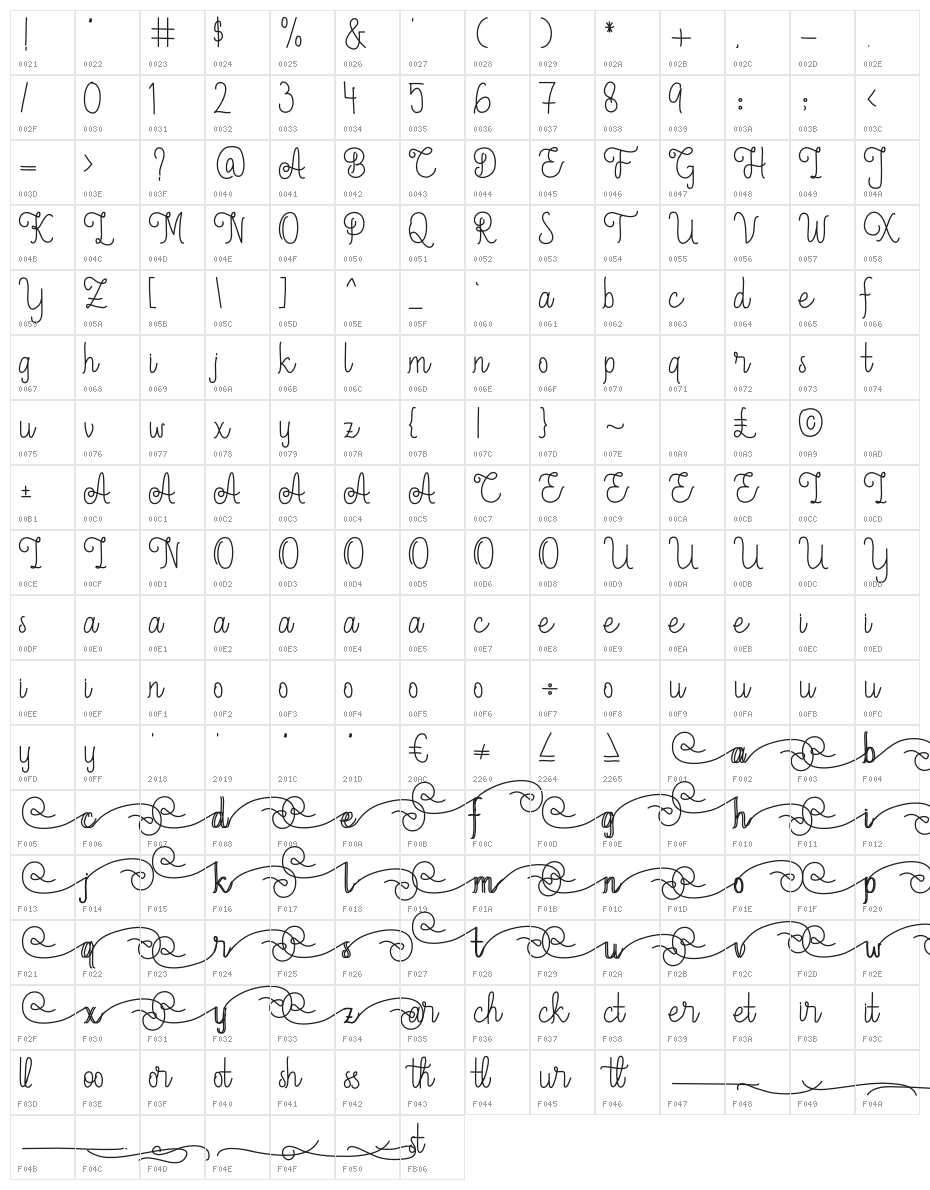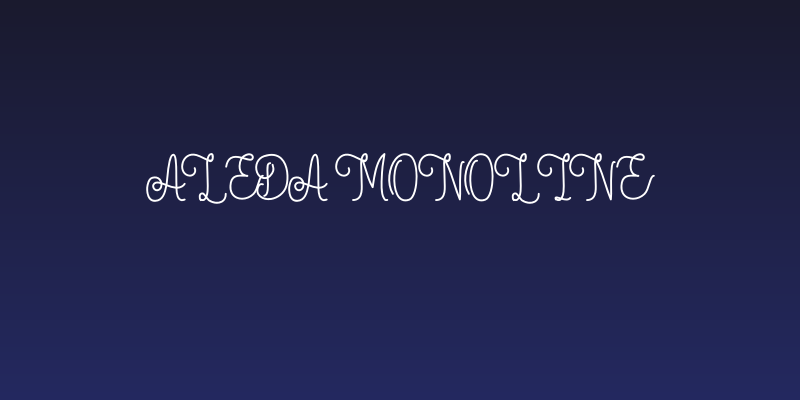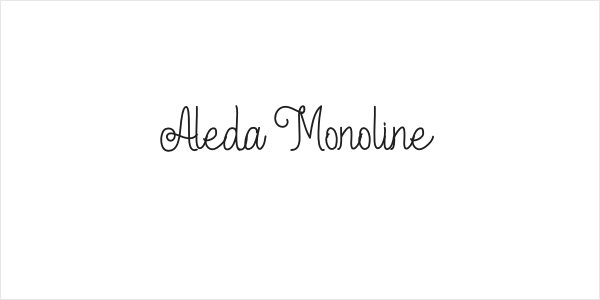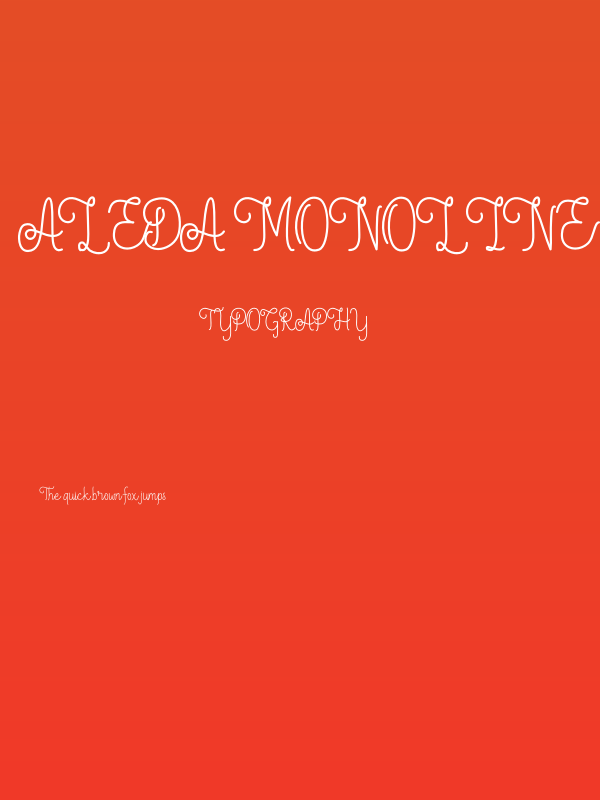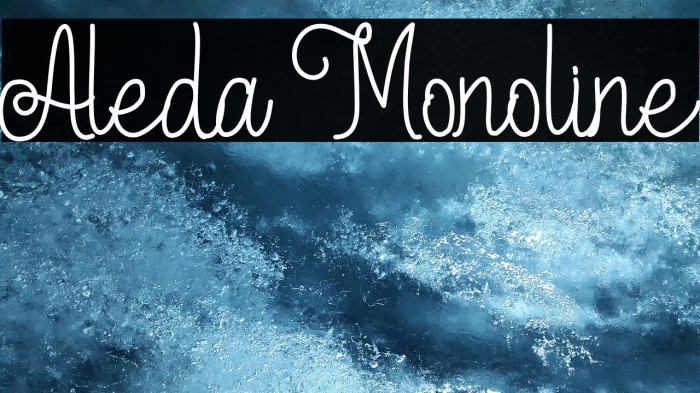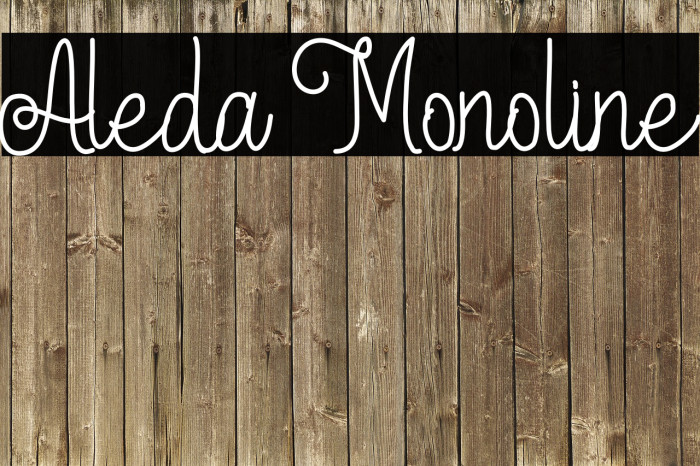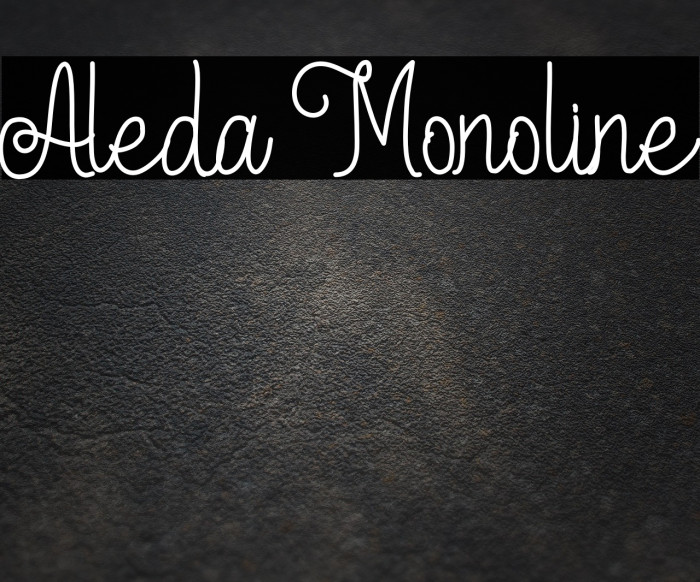
Aleda Monoline Font
Aleda Monoline Description
This font features a playful and whimsical monoline style, characterized by its consistent stroke width throughout each character. The letters are elegantly curved with a hand-drawn appearance, giving it a casual and friendly feel. The uppercase letters maintain a uniform height, while the lowercase letters exhibit a slight variation in size, adding to its charm. The numerals are clear and distinct, matching the overall style of the alphabet. Special characters are creatively designed, maintaining the font's cohesive look. This font is ideal for projects that require a personal touch, such as invitations, greeting cards, or creative branding.